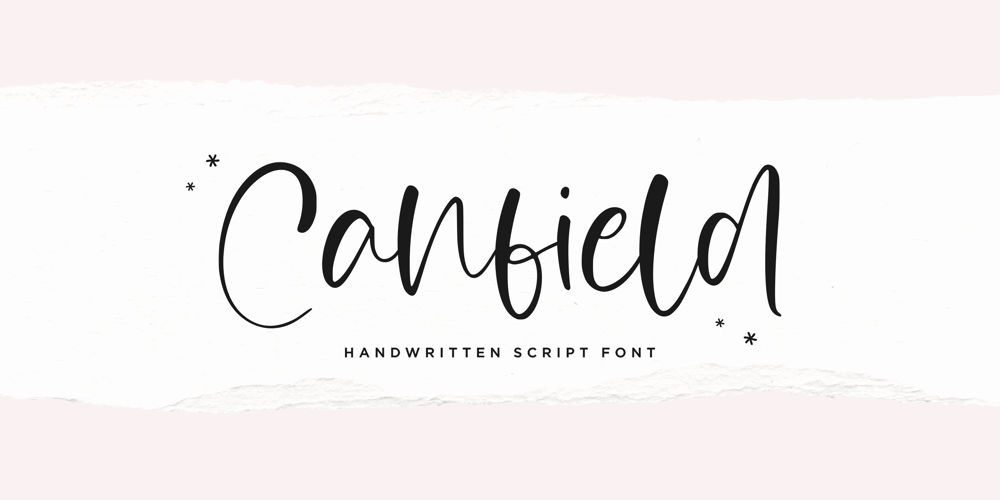
Canfield Font Family was designed by Muhammad Fathurrohman and published by Aestherica Studio. Canfield contains 1 styles and family package options. Canfiled is a delicate and elegant handwritten font. Its distinct and well balanced letters make this font a masterpiece. Fall in love with its incredibly versatile style and use it to create spectacular designs!